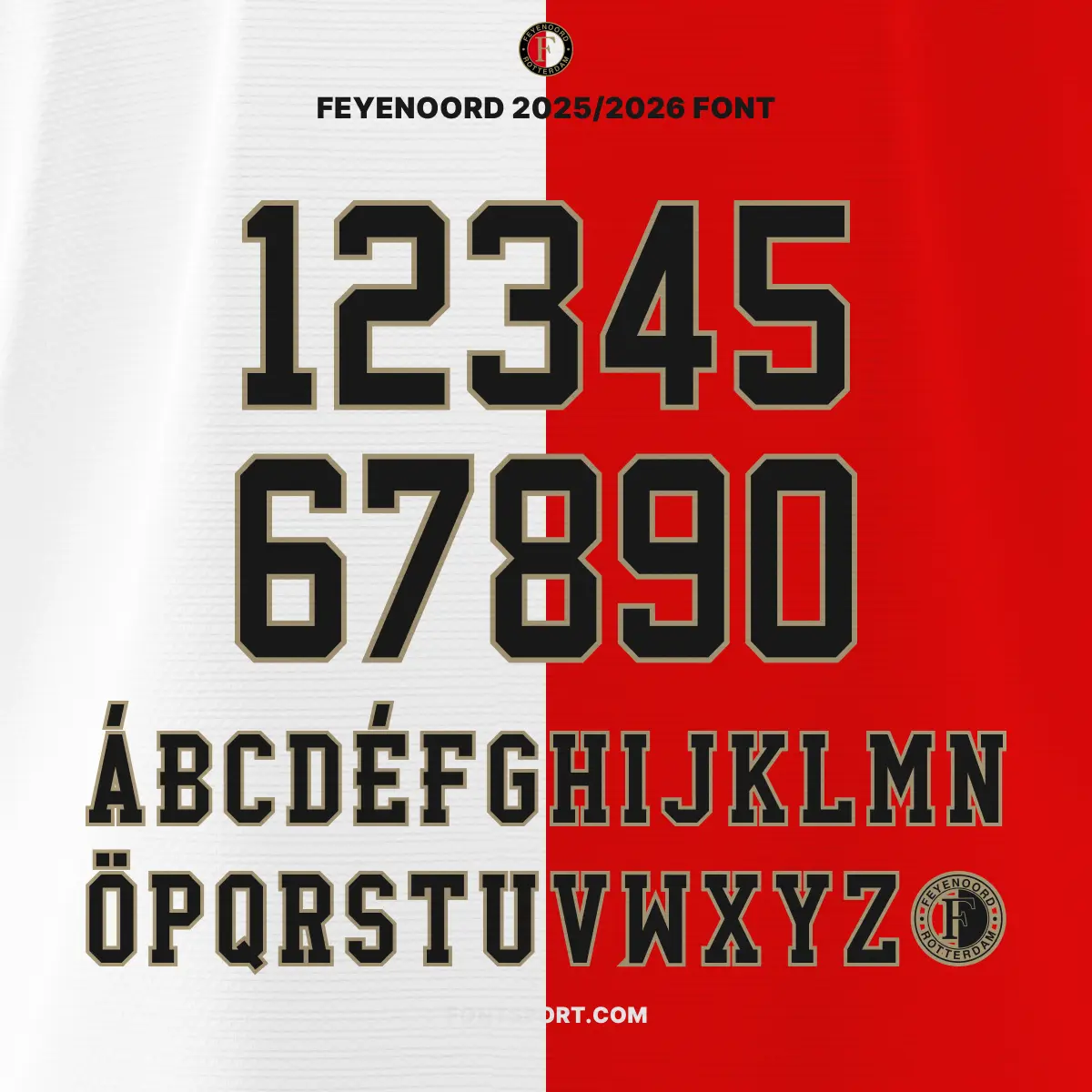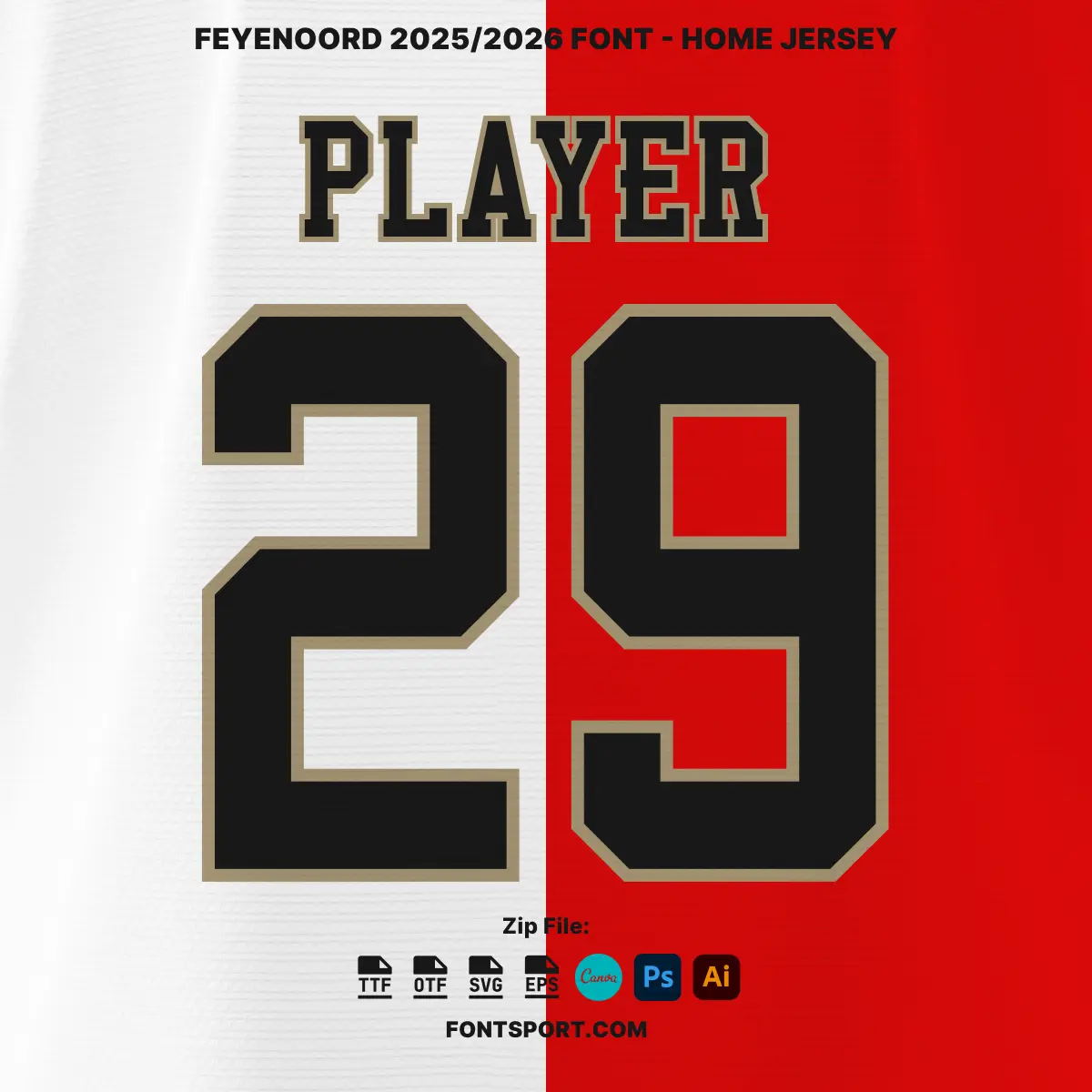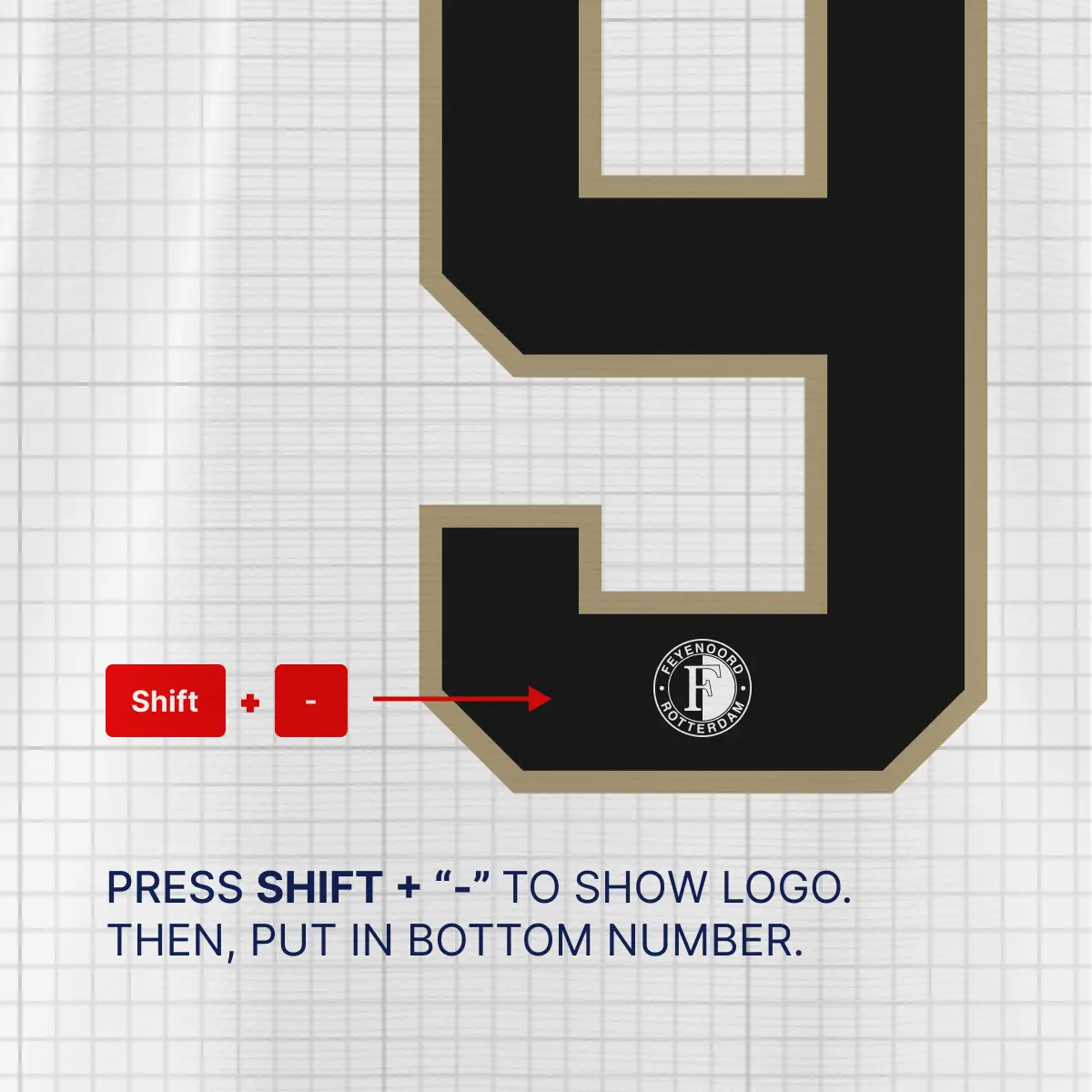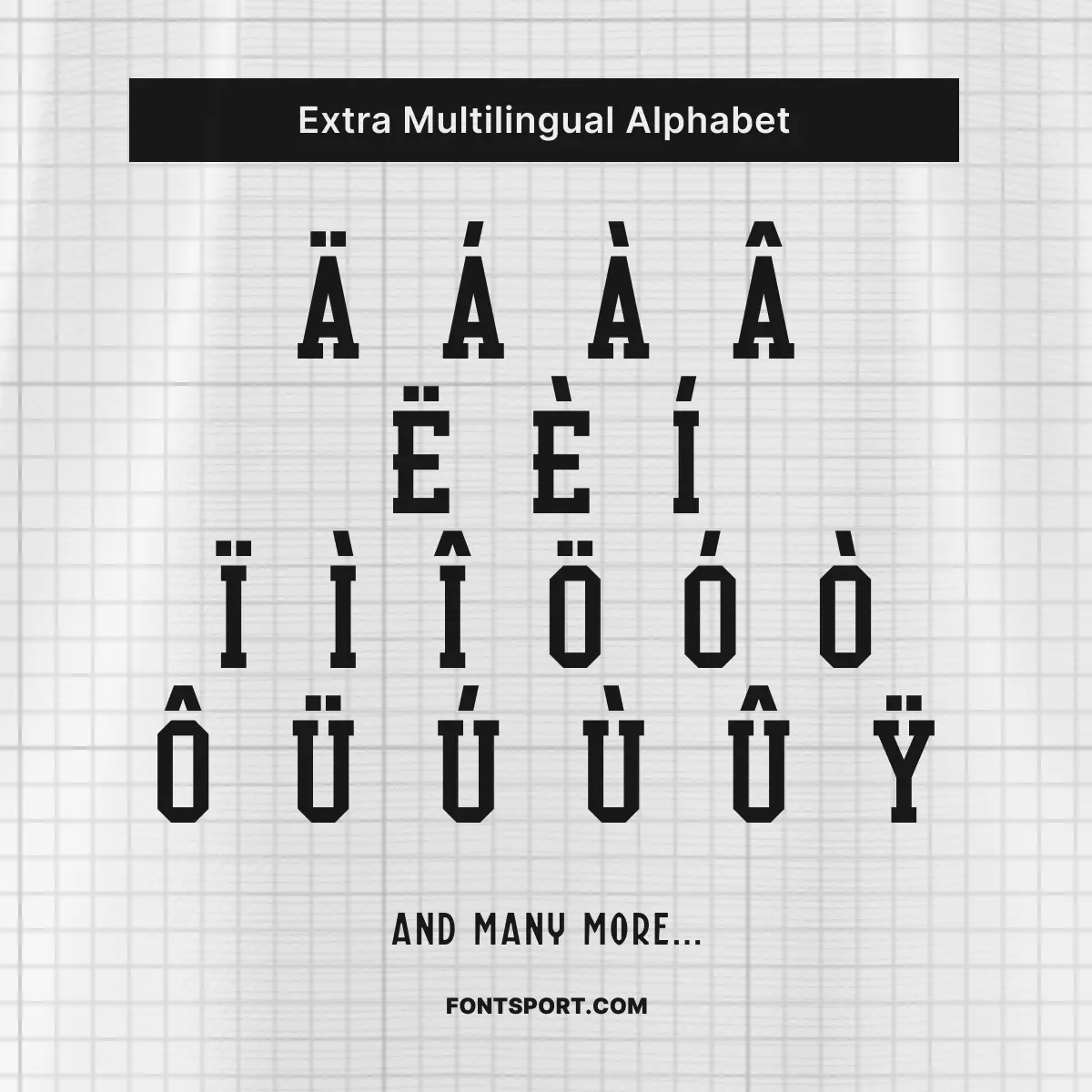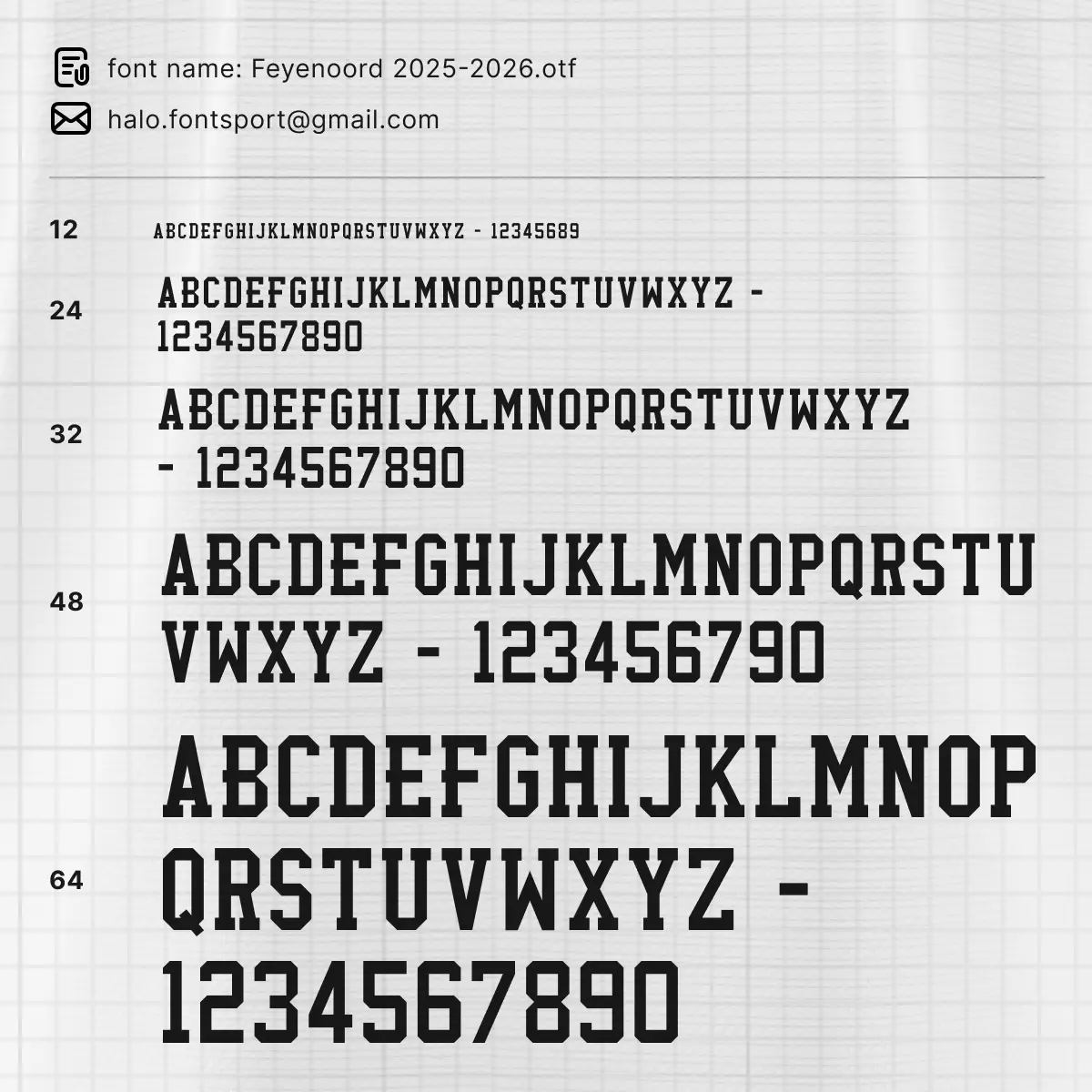
Design with Feyenoord’s 2025/2026
The Feyenoord Font Kit 2025/2026 is a strong, clean typeface inspired by the style of Feyenoord’s season in the Eredivisie. With bold lines and clear shapes, this kit supports a variety of creative projects—such as posters, jersey mockups, fan gifts, and social media graphics. It serves designers, fans, and small businesses seeking a sporty, balanced visual style.
• ✅ Complete set of A–Z uppercase letters and numbers 0–9
• ✅ Built‑in logo glyphs—type to display the Feyenoord crest
Moreover, because logo glyphs are embedded, you don’t need extra image files. In addition, the font maintains high readability whether on screen or in print—ideal for clear, strong text.
These developments highlight Feyenoord’s ambition and renewed momentum, mirrored in the font’s crisp and confident styling.
5. The available characters include uppercase letters (for player names), and numbers (for player jersey numbers).
Feyenoord Font Kit 2025/2026 – overview of full character set A–Z and 0–9
Feyenoord 2025/2026 Font